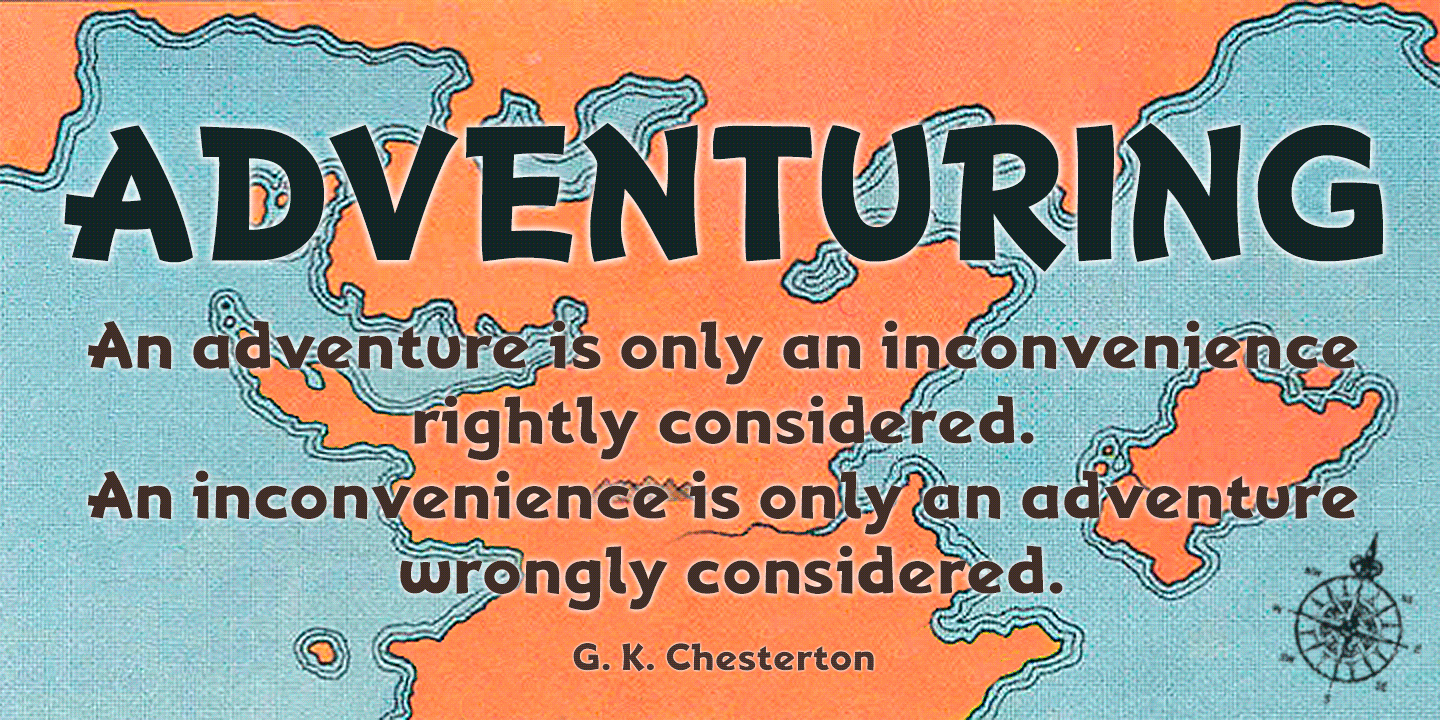
Adventuring Font is a captivating, rugged, and wonderfully evocative typeface, perfect for designs that aim to inspire wanderlust, heroism, and the thrill of exploration. Imagine it gracing the cover of a fantasy novel, adding an authentic, weathered feel to outdoor gear branding, or giving a unique, map-like identity to travel vlogger intros. It’s an exceptional choice for designing compelling video game titles, crafting engaging escape room signage, personalizing adventurous event invitations, and enhancing any project where a sense of epic journey, discovery, and a touch of the fantastical is desired. Its distinctive texture and bold presence make it suitable for anything from historical reenactment materials to tabletop RPG manuals, adding an immediate sense of grand adventure.
What makes Adventuring Font truly exciting is its remarkable ability to transport the viewer to realms of daring quests and untold stories. It possesses an inherent hand-crafted, almost carved appearance that feels genuinely authentic to tales of exploration and ancient lore. Designers are often drawn to its strong character, subtle imperfections, and the heroic energy that gives each letter a unique, compelling appeal. It’s a font that communicates with a sense of bravery, mystery, and an undeniable call to the unknown, ensuring your message resonates with imaginative power and a thirst for discovery. Adventuring Font brings a robust, story-rich charm to your designs, allowing them to stand out with an aura of epic sagas and thrilling expeditions.
The Adventuring Font family typically offers a range of styles and features that enhance its versatility for various creative applications. While specific family members might vary, you can generally expect a powerful Regular weight that embodies its signature rugged aesthetic. Given its specialized nature, Adventuring Font families might also include stylistic alternates for particular characters, ligatures that enhance its handcrafted feel, or even distressed versions to amplify its weathered look. These features enable designers to create highly personalized text, ensuring that the font can adapt to intricate design requirements while maintaining its atmospheric, expressive character across various applications and sizes, whether for display titles or thematic body copy.